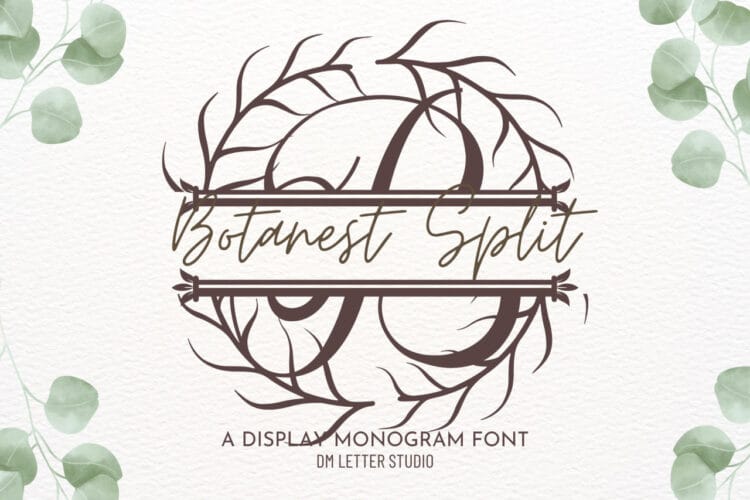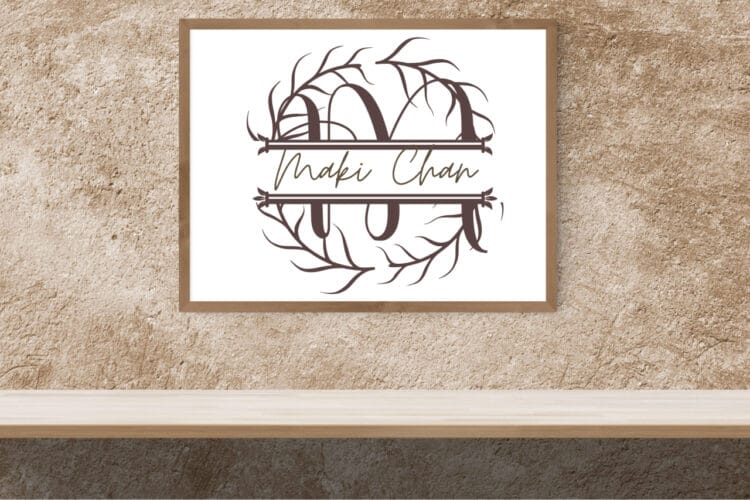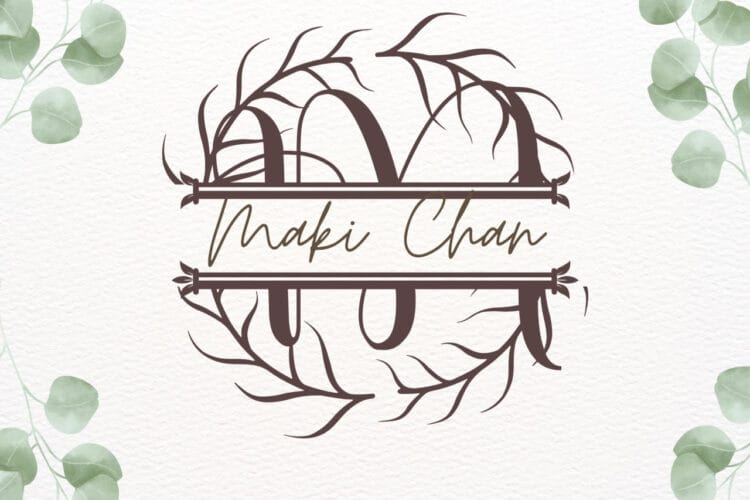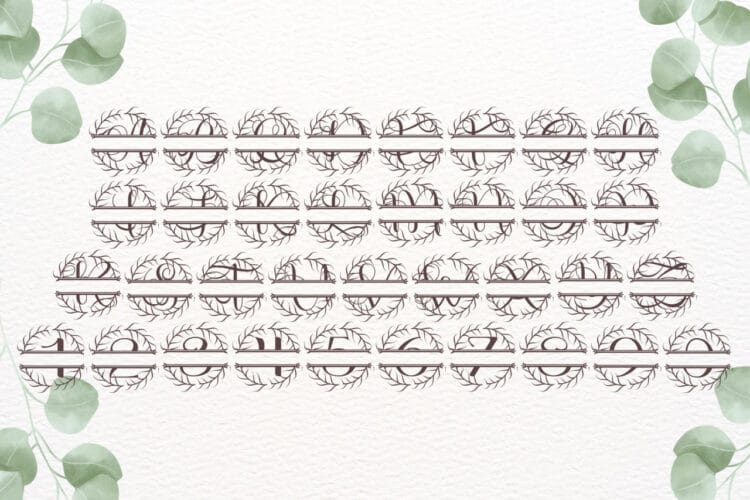
Meet Botanest Split Monogram Font
Botanest Split Monogram turns initials into calm, botanical emblems with a clean split center for names or dates. Inspired by soft leaves and natural balance, the design feels organic, airy, and timeless. Each letter stays clear at any size, so small tags remain readable while larger designs look graceful and composed. Use Botanest Split for wedding suites, eco-inspired branding, stationery, keepsake gifts, and luxury packaging. As a result, your monograms feel personal, natural, and beautifully refined.
Fast layouts with the Botanest Split Monogram Font
Start with a bold initial and place the name or date in the split center. After that, keep extra text minimal so the botanical form remains the focus. Because Botanest Split holds its shape at small sizes, labels, stickers, cards, and favor tags stay clean and readable. In addition, it pairs beautifully with soft serifs, light scripts, or clean sans serifs for supporting text. Finally, save color palettes like sage and cream, olive and ivory, eucalyptus and linen, or charcoal and soft gold to reuse across collections.
Creative uses and quick wins
Wedding monograms, invitation covers, and ceremony signage
Place cards, table numbers, and favor tags
Logo seals, certificates, and boutique brand marks
Packaging labels for candles, soap, perfume, and gift boxes
Design tips for Botanest Split Monogram Font
Keep the monogram as the hero and use a separate font for any text outside the split area. Also, give it enough breathing room so fine botanical details stay crisp at smaller sizes. For a premium finish, try foil stamping, embossing, or letterpress on thick or textured stock. Finally, export at 300 DPI for print and at 2× size for web so edges remain smooth everywhere.